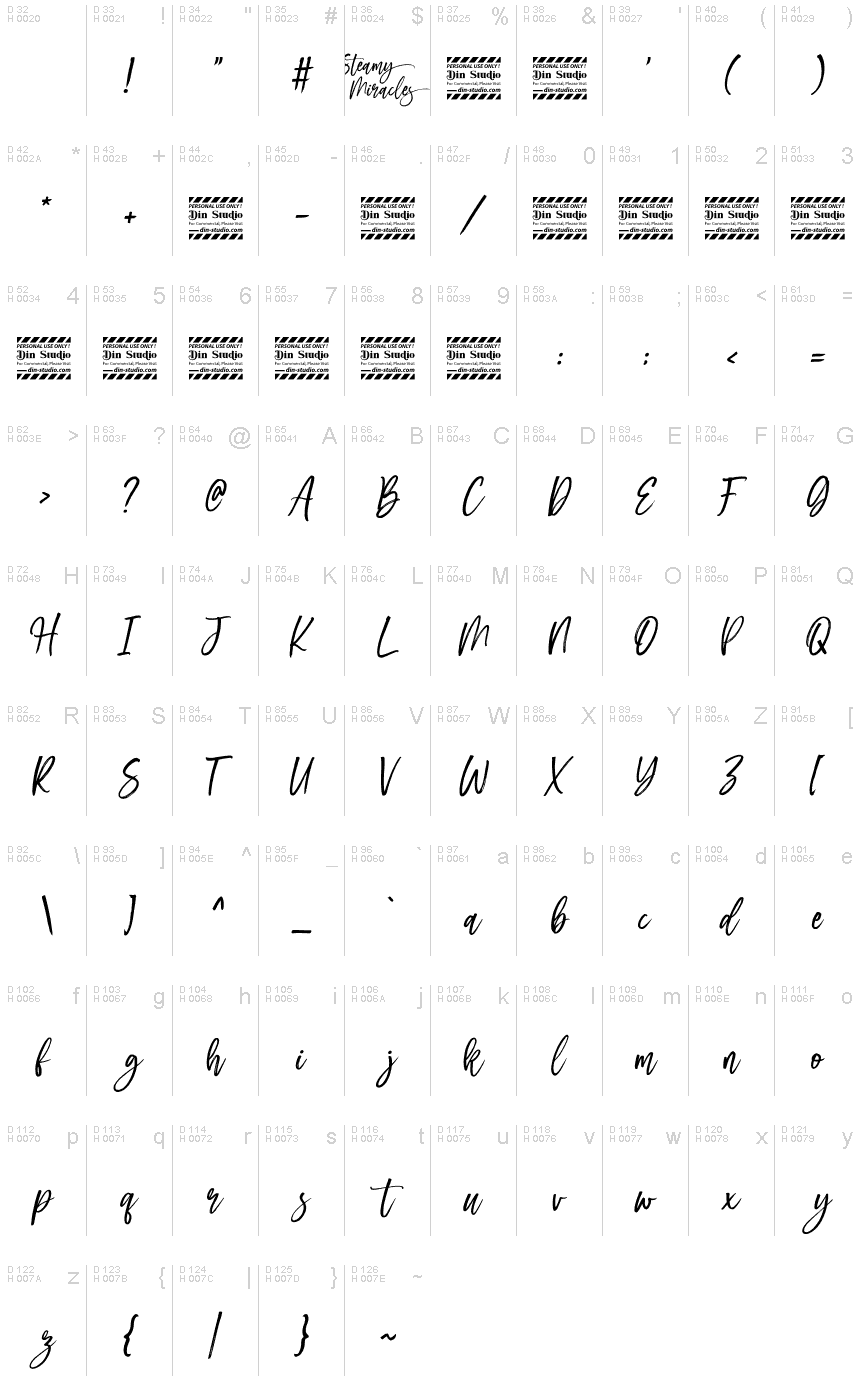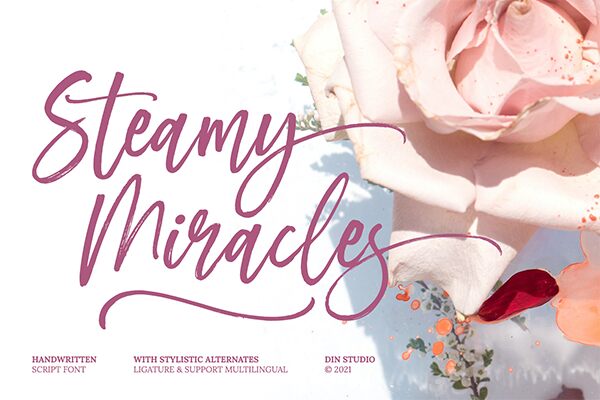
Steamy Miracles, the captivating handwritten font by Din Studio, exudes a delicate charm with its semi-light weight and condensed width. Its graceful curves and authentic feel make it perfect for whimsical wedding invitations, enchanting children's books, or dreamy lifestyle blogs. This versatile typeface adds a touch of elegance to fashion magazines, while also lending an air of nostalgia to vintage-inspired branding projects. Whether you're aiming for a romantic ambiance or seeking to infuse your designs with a hint of playfulness, Steamy Miracles is the ideal choice to bring your creative visions to life.
A beautifully handcrafted font thatll make your guests sing and elevate your projects!
Every swash, stroke, and curve was created to entice happiness and elegance. The ideal font for social media banners; posts, and ads, printed quotes, t-shirt designs, packaging, or even as a modern text overlay to any background image.
Our font always includes Multilingual Support to make your branding reach a global audience.